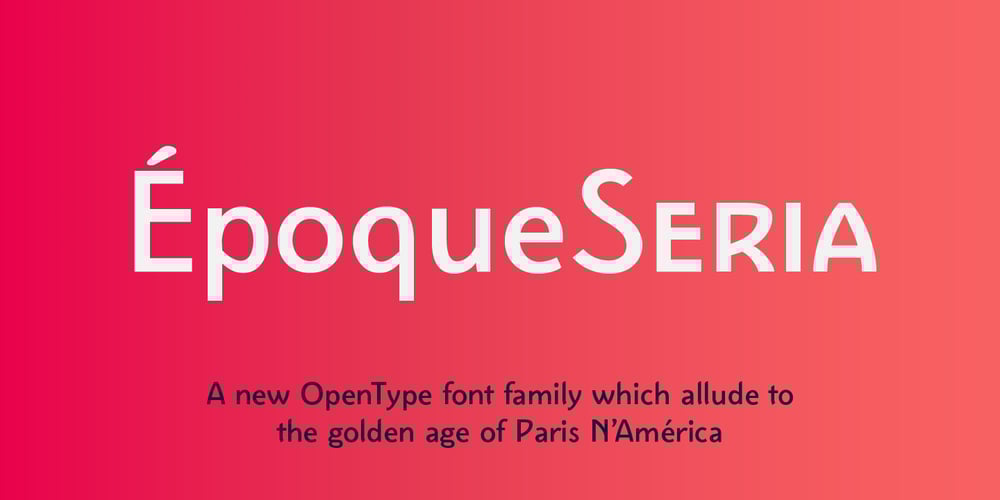
Epoque Seria
Epoque Seria font
Epoque Seria Font Family was designed by Rafael Ferreira and published by Rafaeiro Typeiro. Epoque Seria contains 12 styles and family package options. Époque Seria is that kind of person who looks really cute when angry. This font was derived from the Époque family. She is the little sister to Époque – a little shorter with her smaller x-height and — how do you say it in the typographic circle — your eyes are also smaller (and you know you squint when things get serious, isn’t it?). The genealogy of these font face is undeniable, but Époque Seria has a ‘personality’ very different from her older sister. The reduction of the x-height also shakes somewhat with the cap that had crossbar. To accompany the package of standardization, the letters that don’t have their straight axes were changed, which brought to the set more Cs and Gs contemporaries. In addition, other measures were taken as a greater softness in the variation of the weights and the abandonment of the black weight, being considered too heavy for this version.